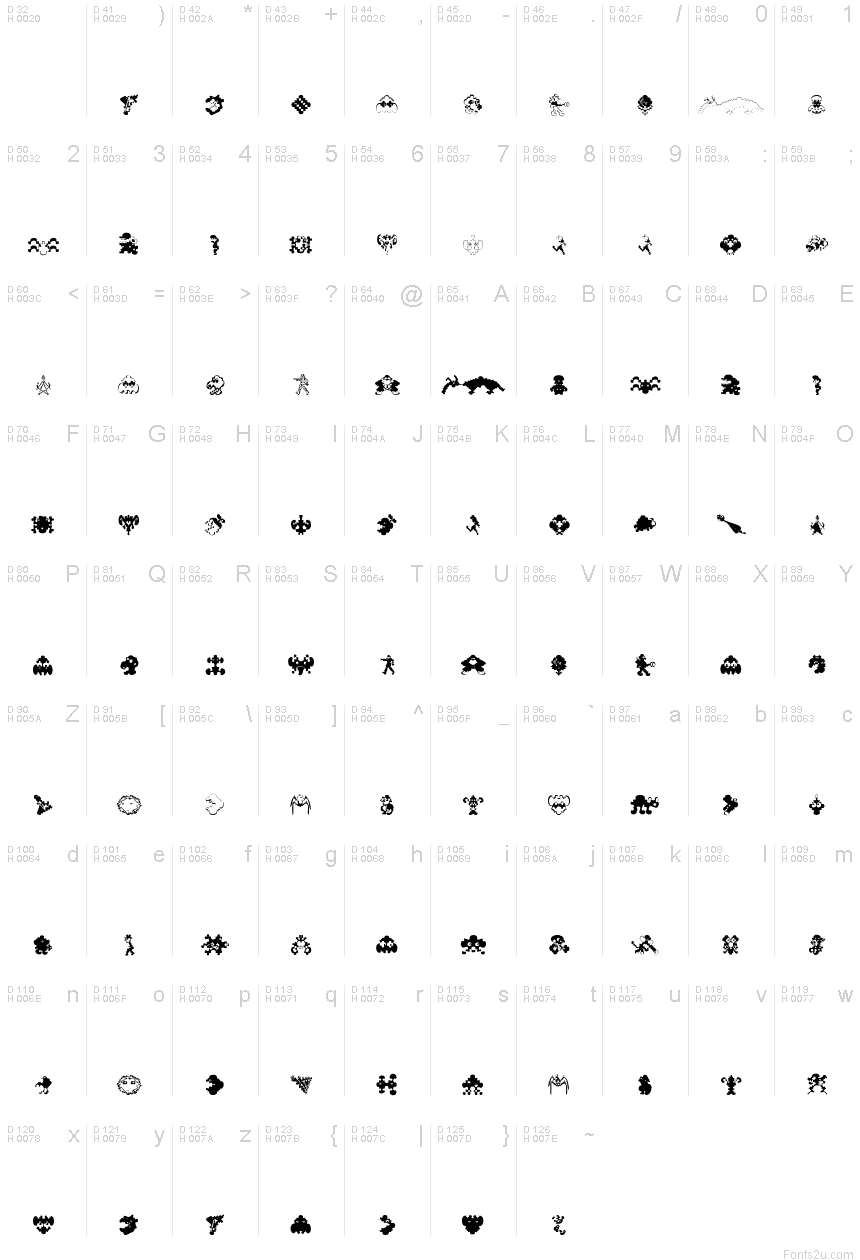
Roundlings by M Klein is a free cartoon creature dingbat font built from plump, irregular silhouettes. Dots, bumps, and tiny eyes animate every shape. The figures vary from compact blobs to busier forms with beadlike edging and sprouting limbs, yet the same soft construction holds the set together.
Friendly monsters and imaginary animals make this collection especially useful for children's publishing and game graphics. Its simple faces can also supply mascots for party invitations, toy packaging, and playful merchandise. The recurring eyes and rounded bumps let each symbol function as both a character and a small piece of illustration.